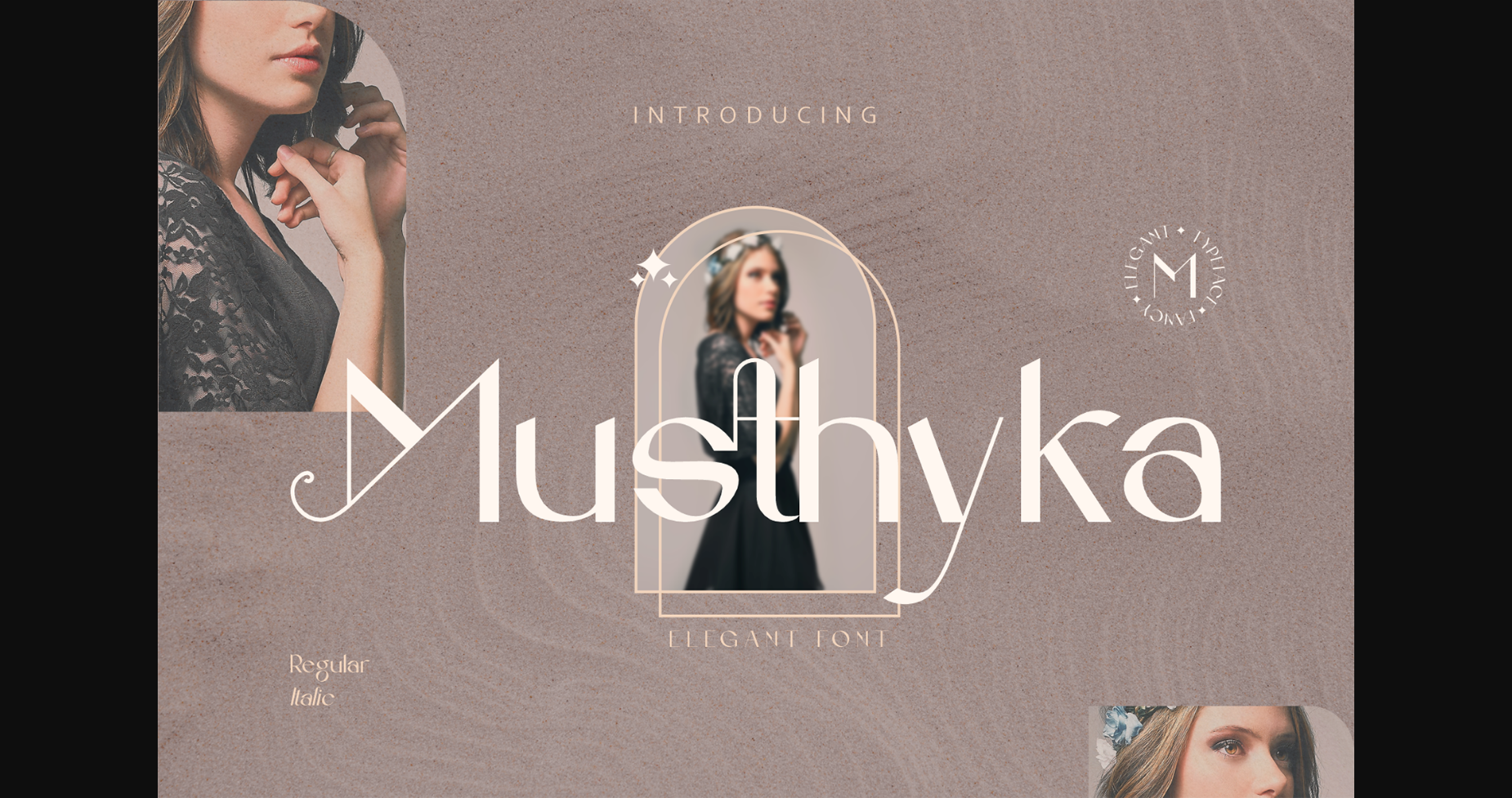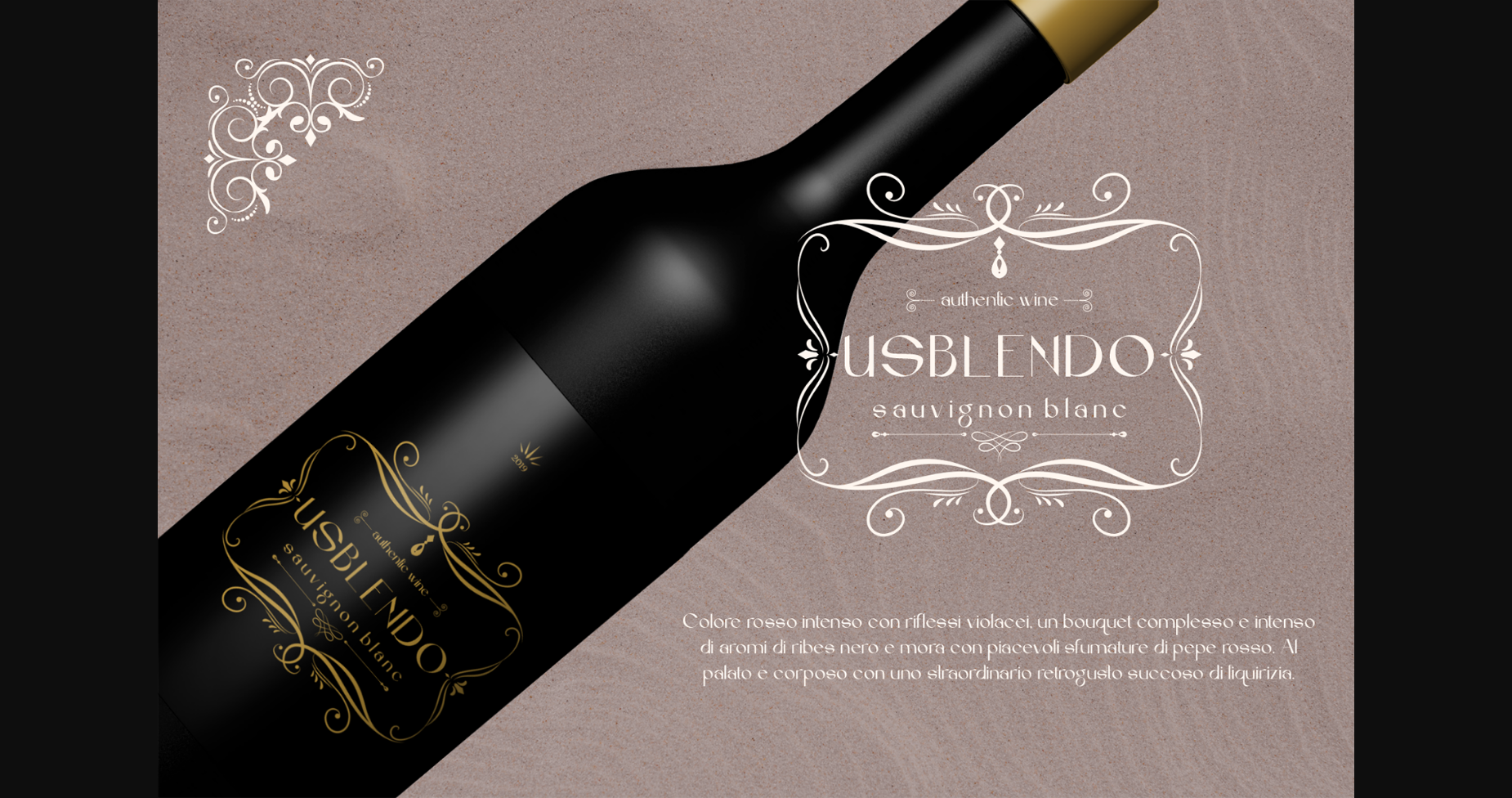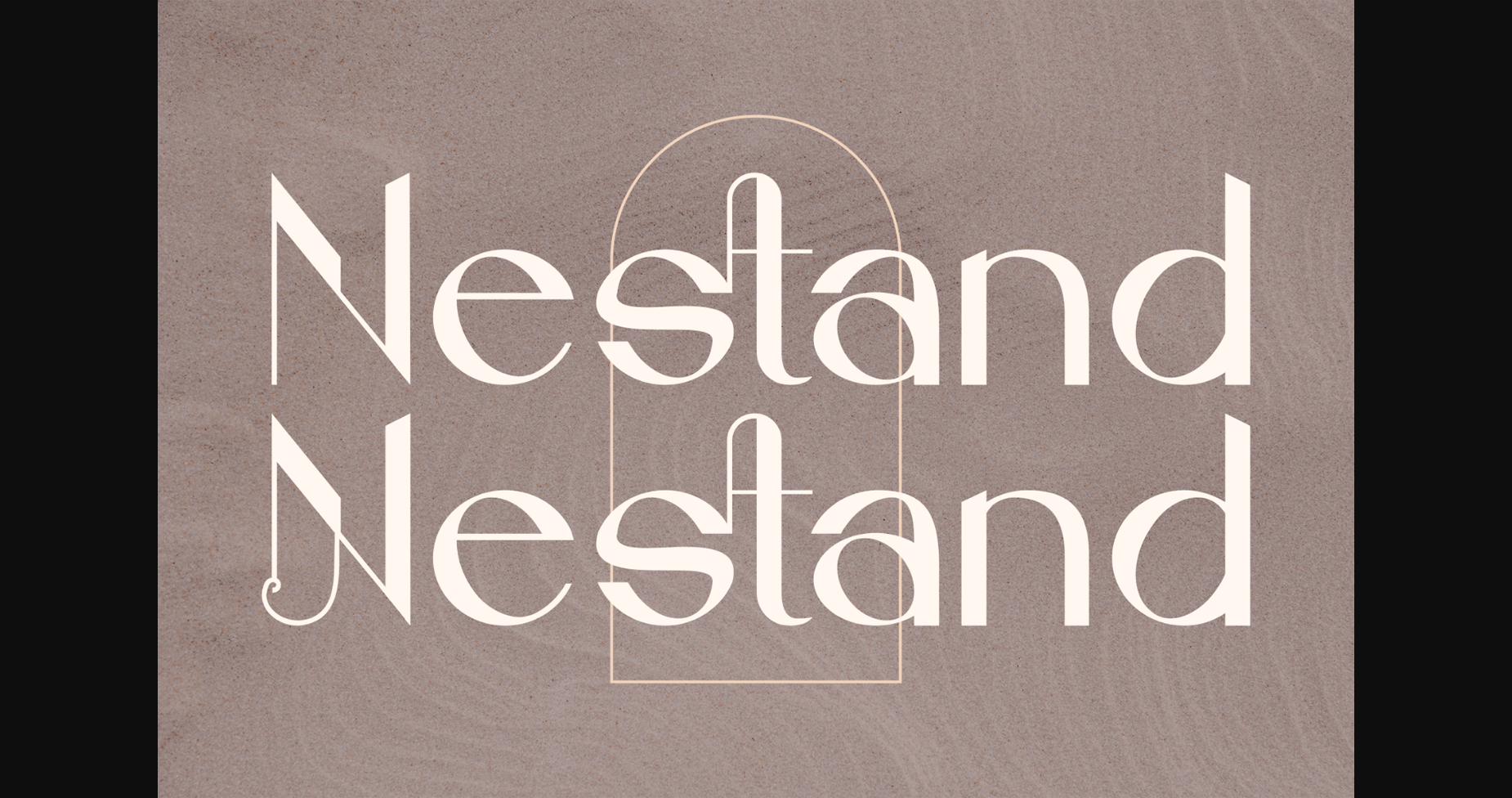
About Musthyka Font
Musthyka is an elegant and highly detailed sans serif font. It looks stunning on wedding invitations, thank you cards, quotes, greeting cards, logos, business cards and every other design which needs a customized touch.